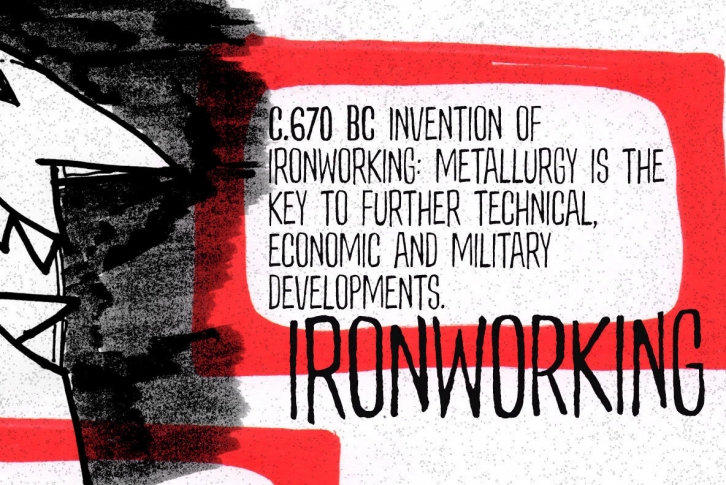
A bittersweet hand-drawn face, pleasing and assertive. Available in two weights, both all caps, with alternates for each letter. Comes with some ​ligatures and ​handy swash alternates to sweeten things up every now and again. Starting… Now!